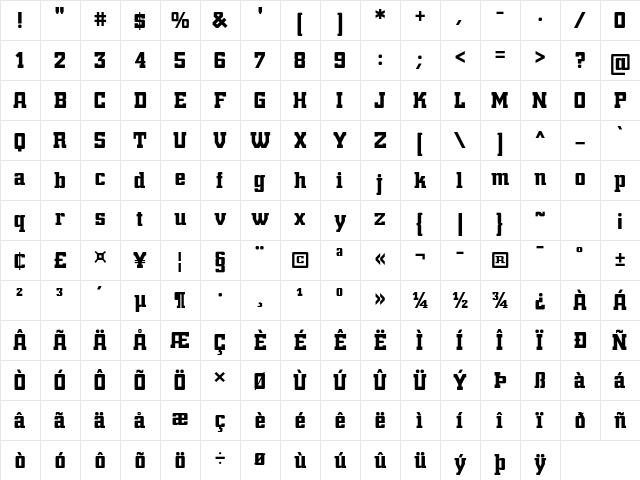
Trump Town Pro Regular Free Font
Trump Town Pro Regular
Designer: Roger S. Nelsson
Design Context for Trump Town Pro
Trump Town Pro is a composed and adaptable typeface that performs quietly and consistently across a wide range of design contexts.